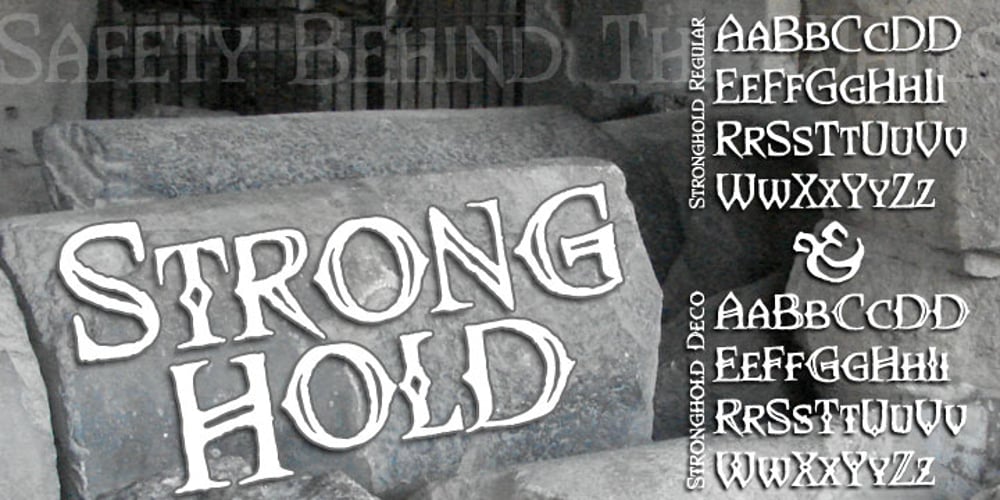
Stronghold BB Font Family was designed by Nate Piekos and published by Blambot. Stronghold BB contains 4 styles and family package options. Fill the moat and sharpen your spears! It’s time to defend the keep against orcs! Comes with Regular and Deco and has a large complement of European characters.